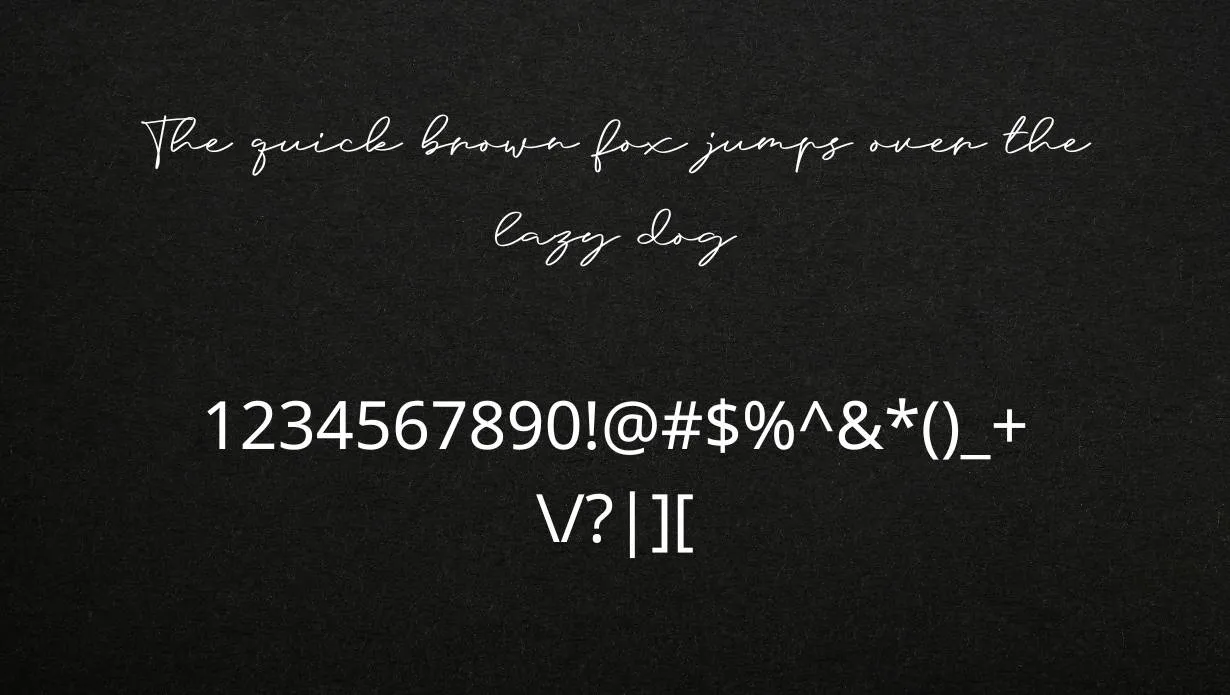
The Anjel font, with its fun and rounded letters, is perfect for designs targeting children’s literature, posters for fun events, or playful branding elements.
| Name | Anjel Font |
| Designer | Mas Anis |
The font is often used in lighter weights, ensuring a softer and friendlier appearance. Its standard width allows easy reading in various contexts.